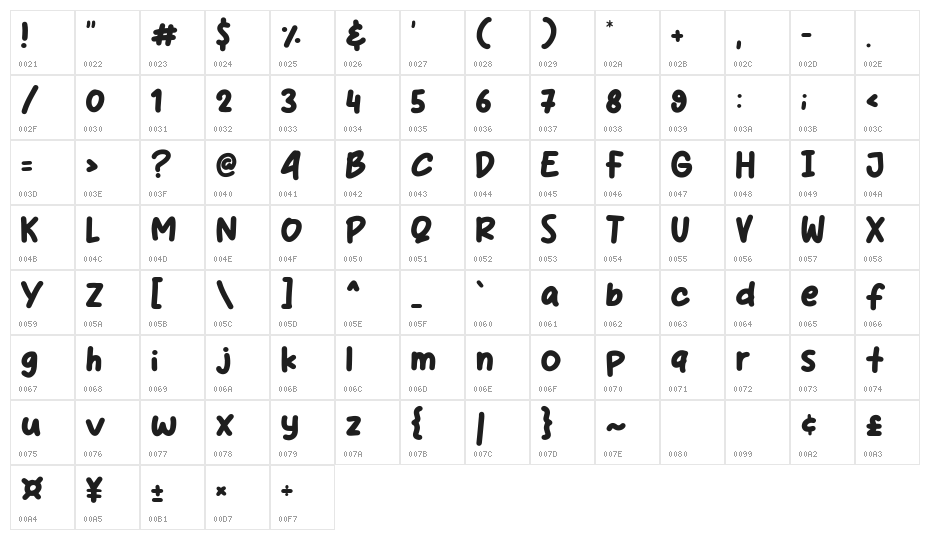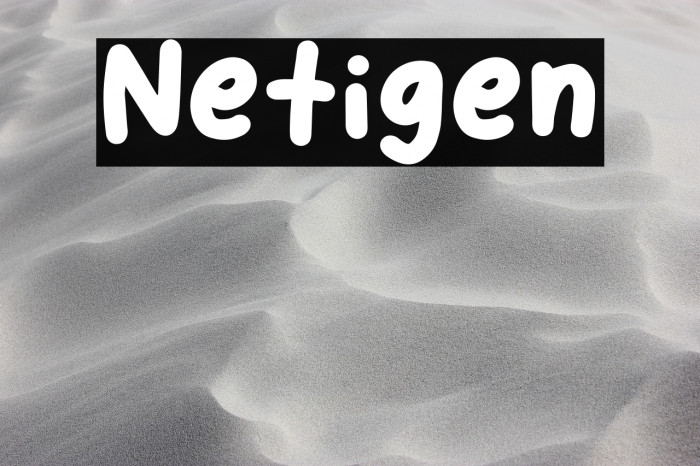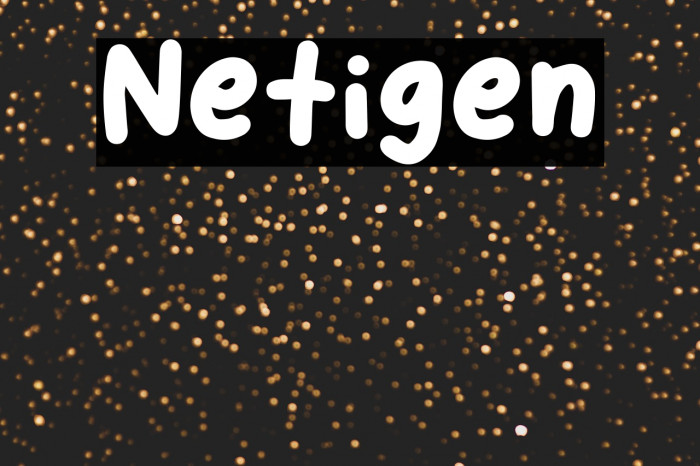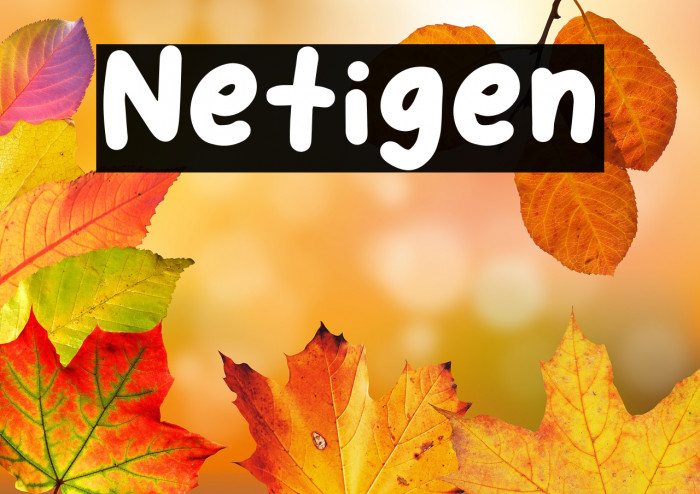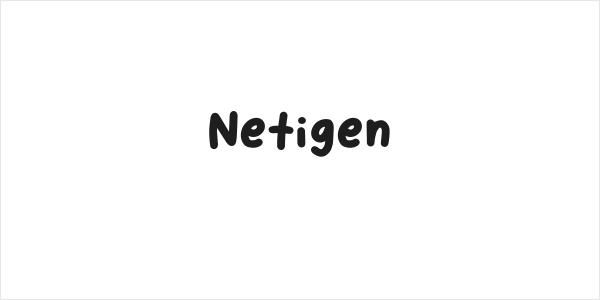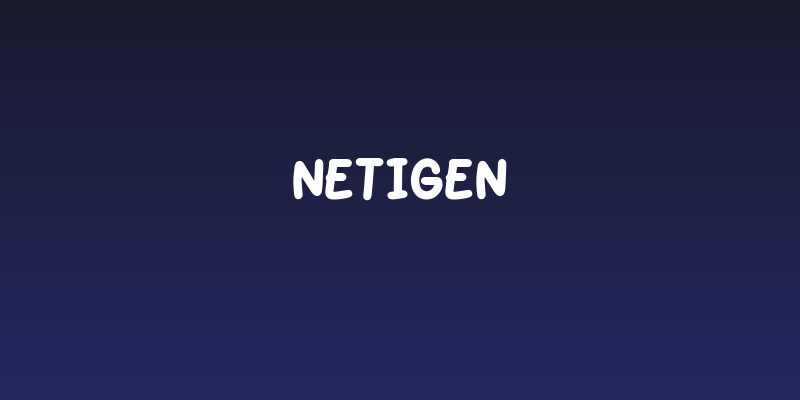
Netigen Font
Netigen Description
This playful and bold font features rounded, thick strokes that give it a friendly and approachable appearance. The characters are slightly irregular, adding a hand-drawn feel that enhances its casual and informal style. The uppercase and lowercase letters maintain consistent proportions, while the numbers and special characters blend seamlessly with the overall design. Its unique charm makes it stand out, making it suitable for projects that require a touch of whimsy and creativity.
| Proposed Projects | Ideal for children's books, playful branding, greeting cards, and casual social media graphics. |